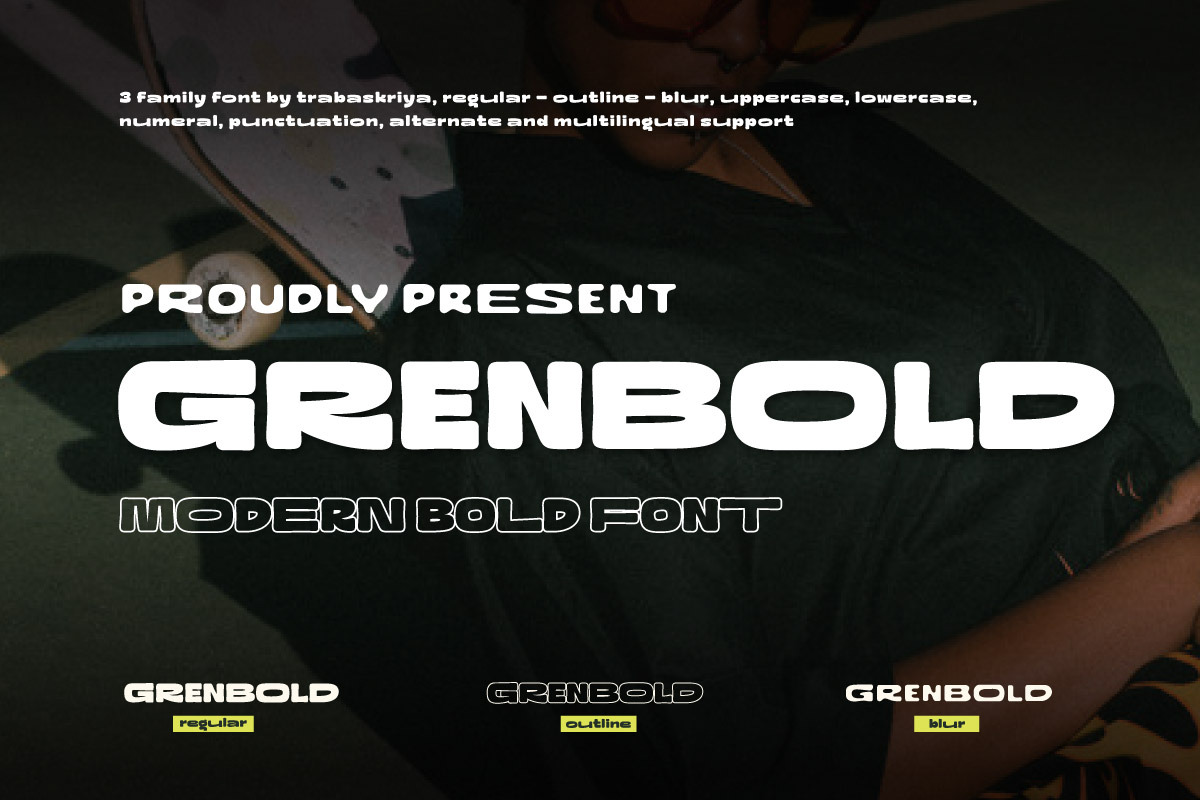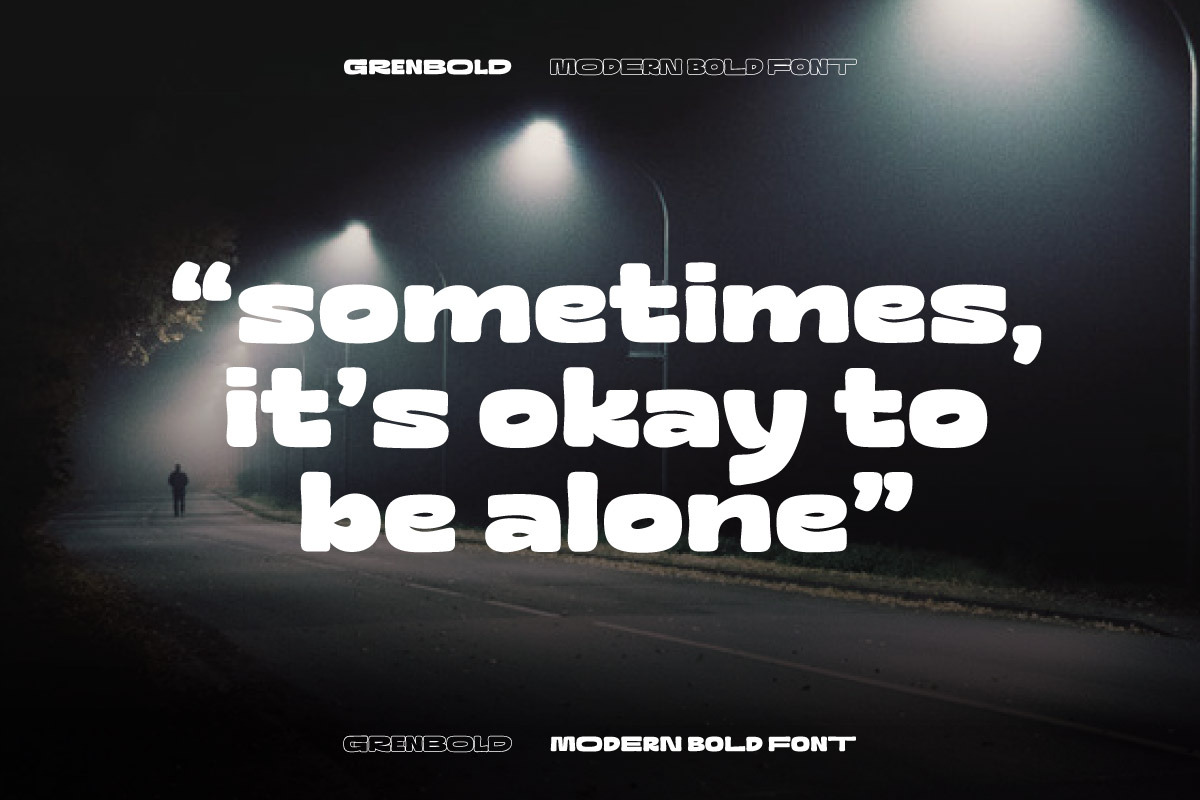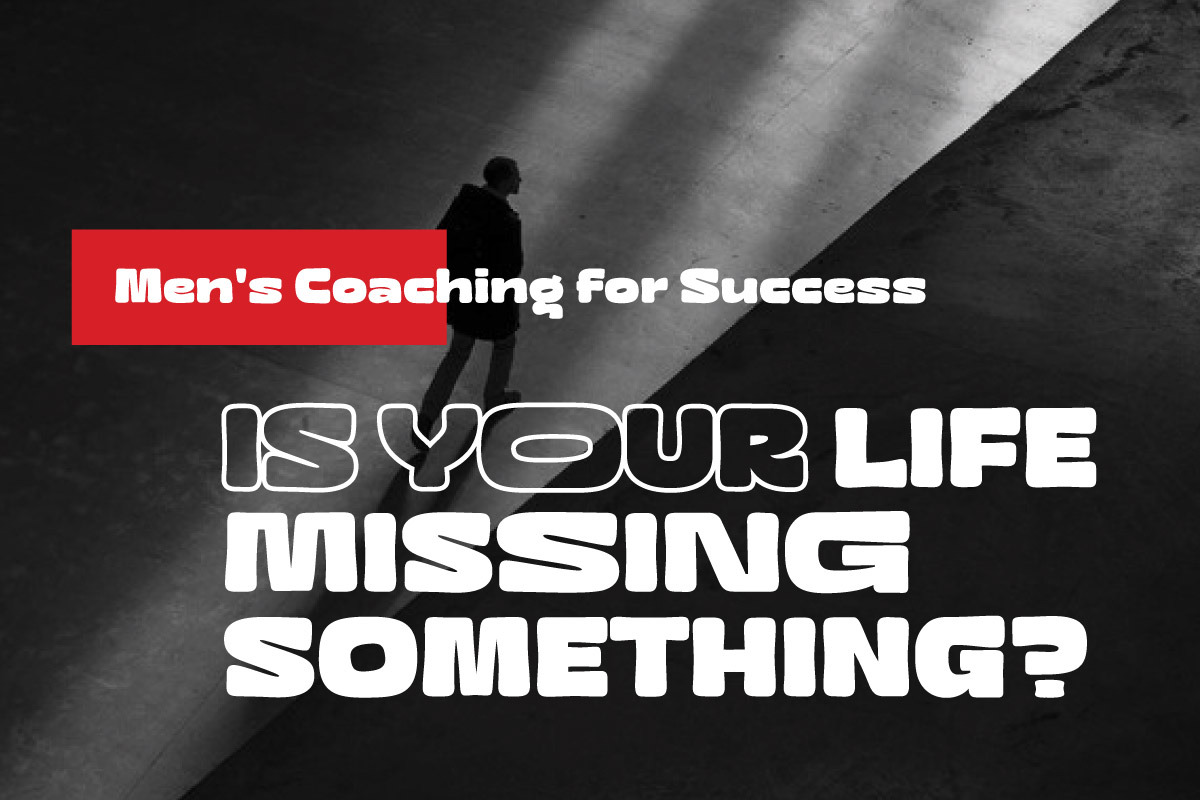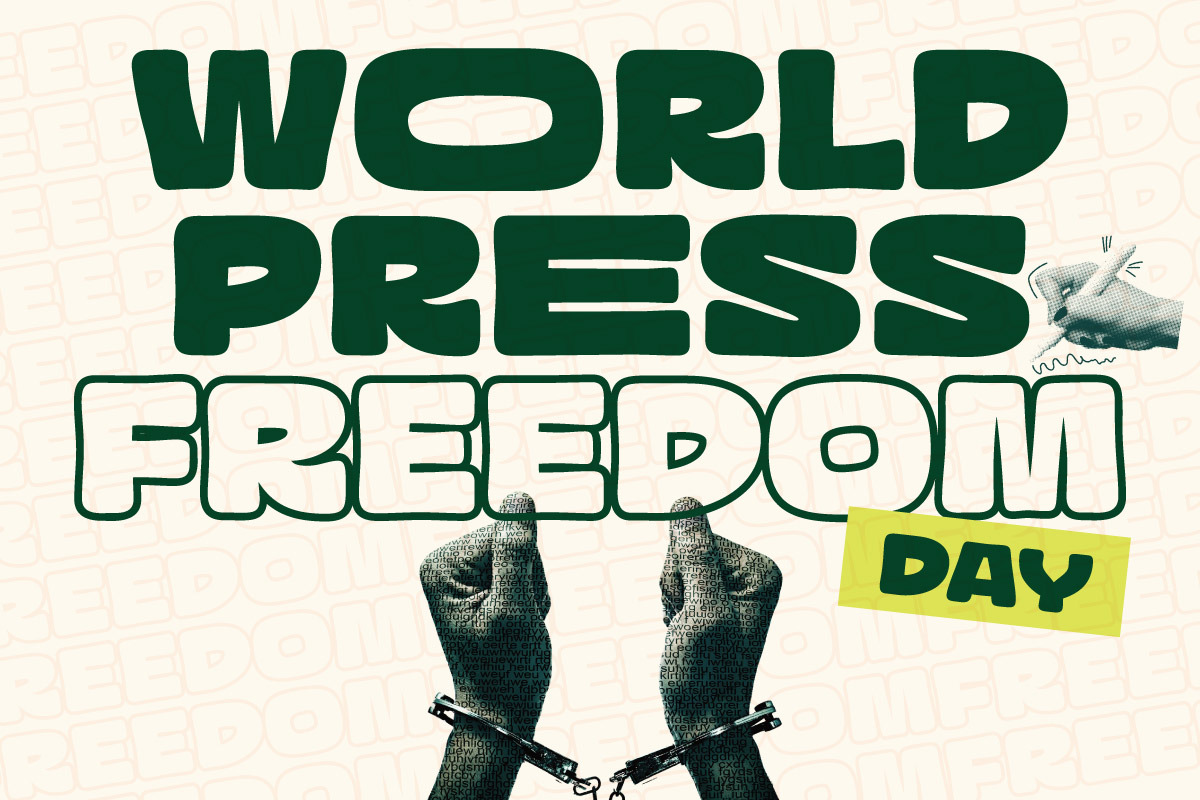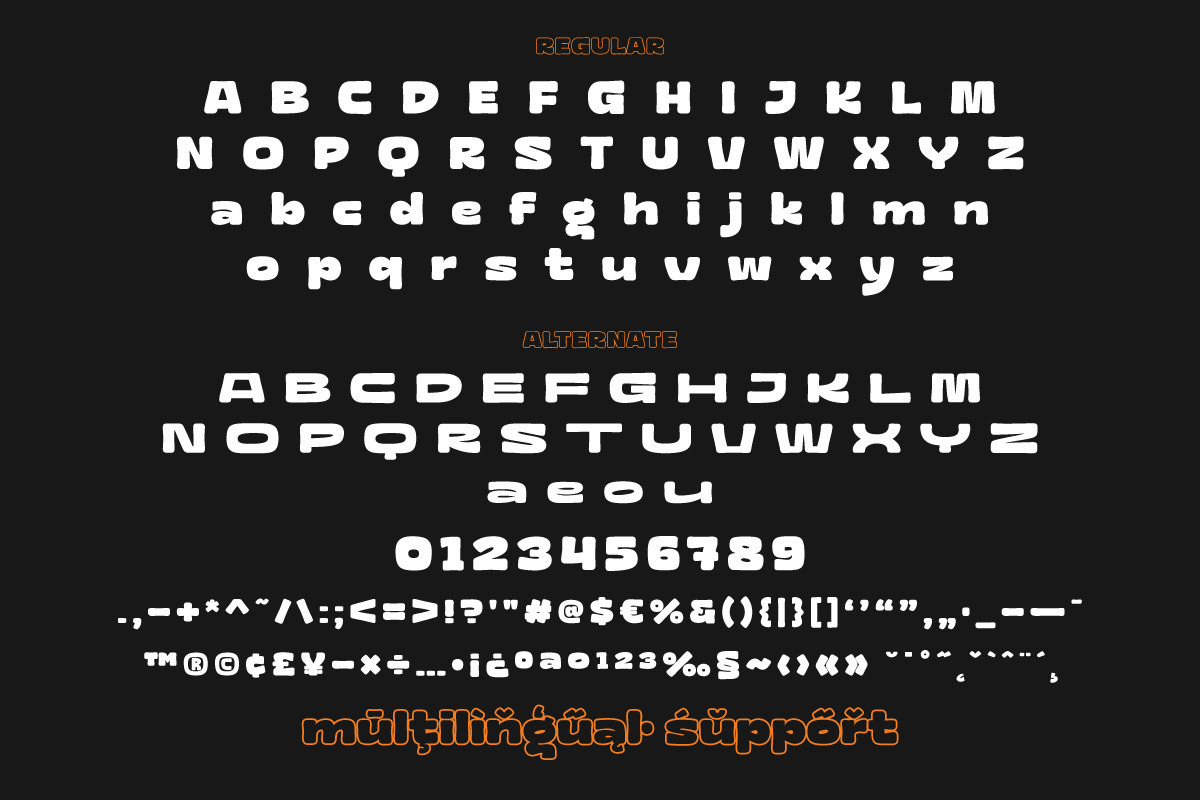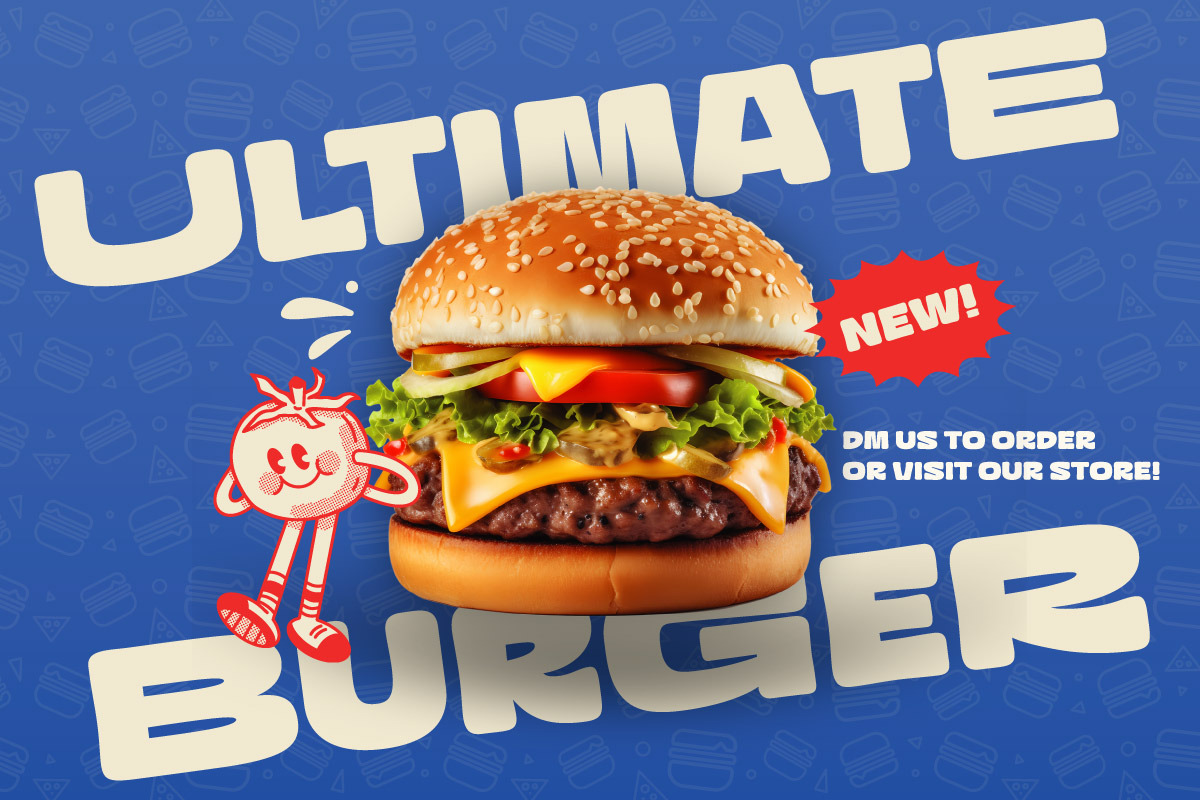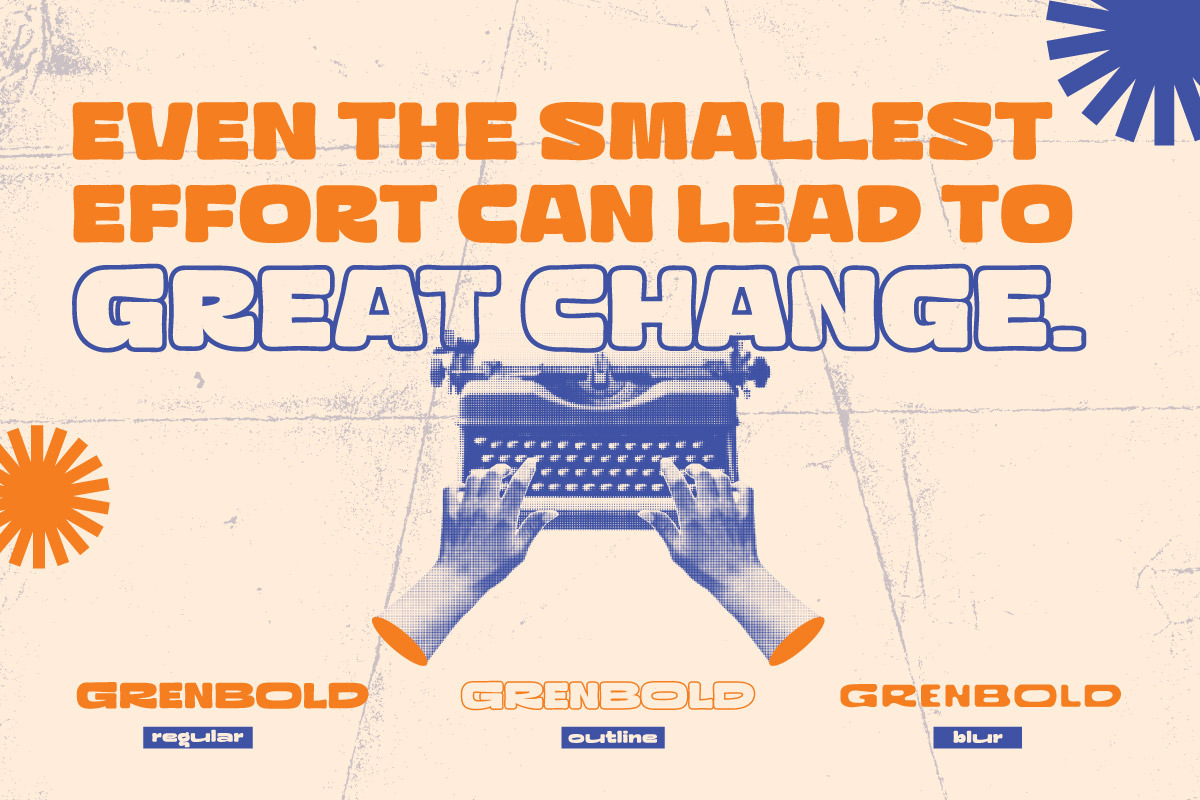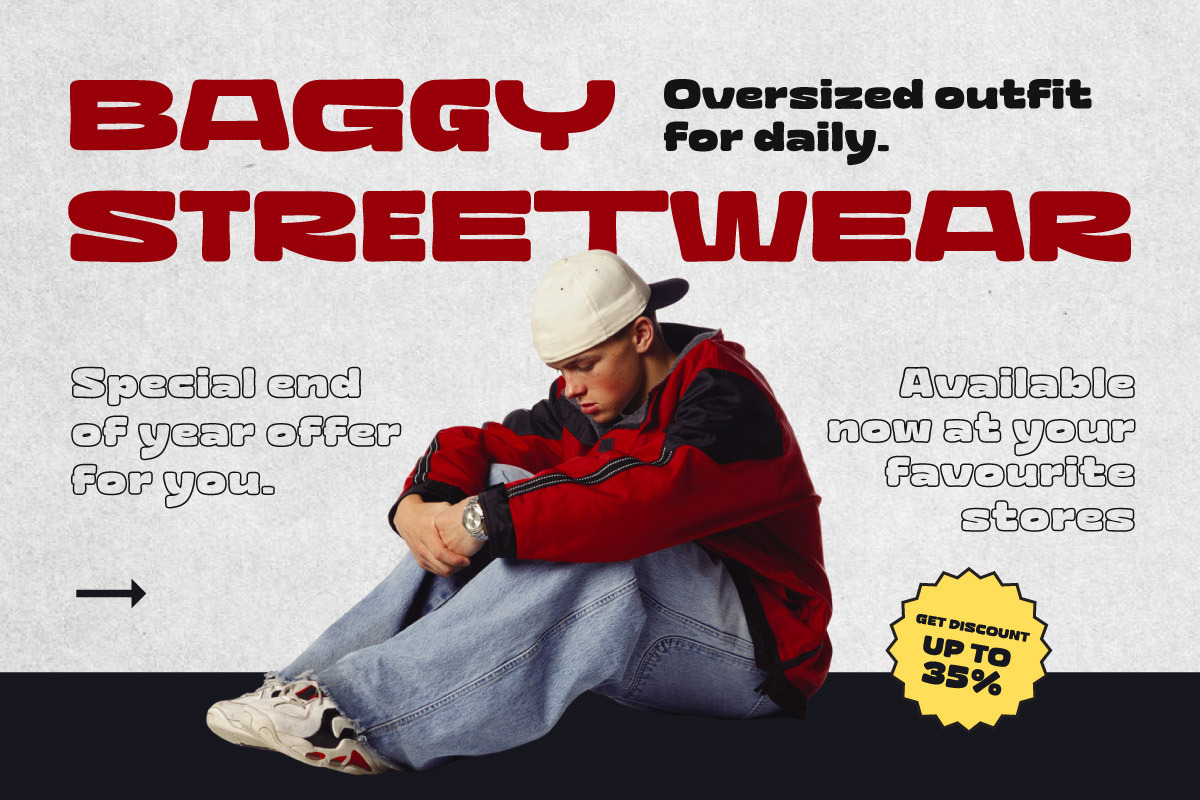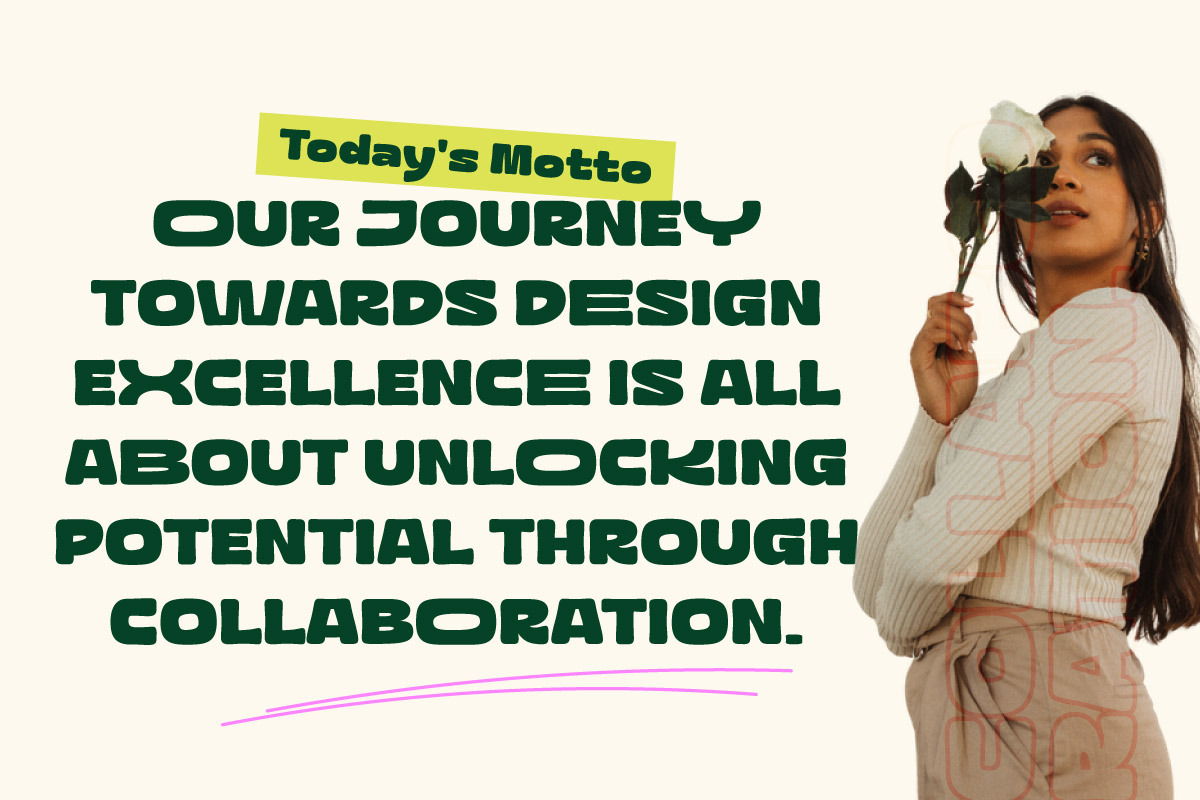
Grenbold - Modern Bold Font
Grenbold is a modern bold display font that radiates strength and contemporary style. With its thick strokes and smooth curves, this font brings a confident character to every design, making it the perfect choice for projects that demand boldness and clarity.
Crafted for versatility, Grenbold works beautifully in logos, posters, headlines, product packaging, and digital branding. The font family comes with Regular, Outline, and Blur styles, giving designers the freedom to play with contrasts and layering effects for maximum impact.
Every letter in Grenbold carries a sense of power and modern aesthetics, making your text not only readable but also unforgettable. It’s the kind of font that doesn’t just sit on the page—it commands attention and leaves a lasting impression.
- Fonts include Multilingual: Support for 85 languages Afrikaans, Albanian, Asu, Basque, Bemba, Bena, Breton, Catalan, Chiga, Cornish, Croatian, Czech, Danish, Dutch, Embu, English, Esperanto, Estonian, Filipino, Finnish, French, Friulian, Galician, Gusii, Hungarian, Indonesian, Irish, Italian, Kabuverdianu, Kalenjin, Kamba, Kikuyu, Kinyarwanda, Latvian, Lithuanian, Lower, Sorbian, Luo, Luxembourgish, Luyia, Machame, Makhuwa-Meetto, Makonde, Malagasy, Maltese, Manx, Meru, Morisyen, North, Ndebele, Norwegian Bokmål, Norwegian Nynorsk, Nyankole, Oromo, Polish, Portuguese, Quechua, Romanian, Romansh, Rombo, Rundi, Rwa, Samburu, Sango, Sangu, Scottish, Gaelic, Sena, Serbian, Shambala, Shona, Slovak, Slovenian, Soga, Somali, Spanish, Swahili, Swedish, Swiss German, Taita, Teso, Turkish, Upper Sorbian, Uzbek (Latin), Volapük, Vunjo, Walser, Zulu.